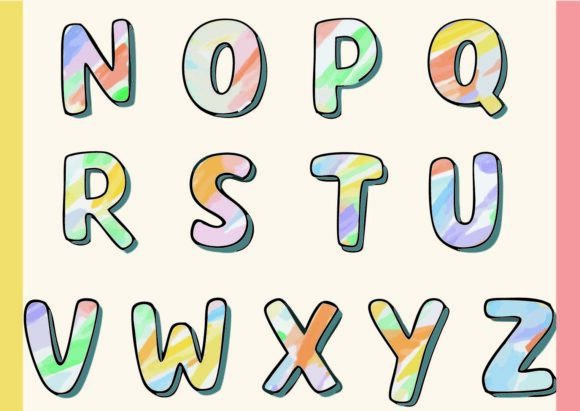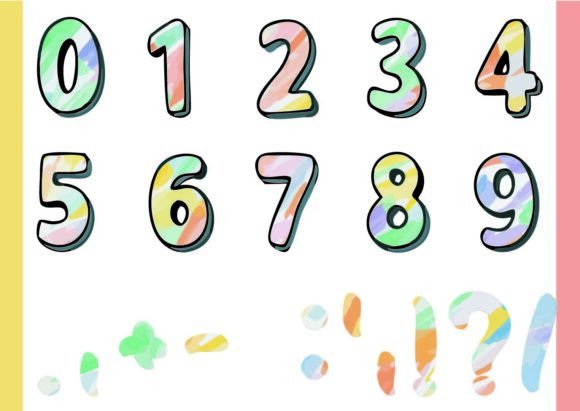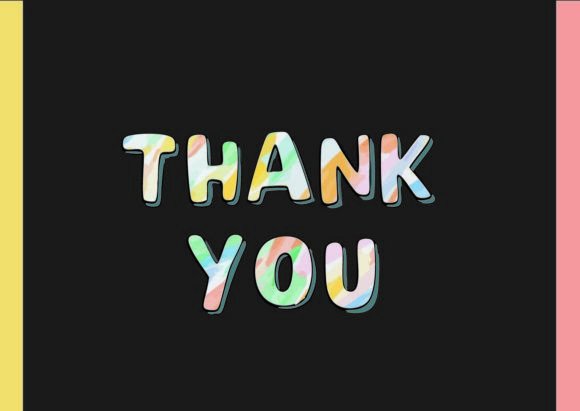
Eva Font: A Colorful Heaven for Designers and Crafters
Are you tired of traditional fonts and looking for something that can add a pop of color to your designs? Look no further than Eva Font, a stunning color font that is sure to take your typography to the next level. In this article, we’ll dive into the world of Eva Font, exploring its unique features, compatibility, and uses, making it a must-have for designers and crafters alike.
What is Eva Font?
Eva Font is a chromatic font, meaning every single glyph has a different set of colors. This results in a colorful heaven, where each letter, number, or symbol is a vibrant and eye-catching element that can add visual interest to any design. Whether you’re working on a branding project, a craft, or a digital design, Eva Font is sure to make your work stand out.
A Closer Look at Eva Font’s Glyphs
If you take a closer look at the glyphs in Eva Font, you’ll notice complex sets of paths and connections in every single one of them. Each glyph is like a typographic painting, with intricate details and a unique color scheme. This level of detail and craftsmanship makes Eva Font a true masterpiece, perfect for designers and crafters who appreciate the art of typography.
Uses for Eva Font
Eva Font is a versatile design asset that can be used in a variety of projects, including:
- Branding and logos: Add a pop of color to your brand identity with Eva Font’s vibrant glyphs.
- Digital designs: Use Eva Font to create eye-catching social media graphics, blog posts, and website headers.
- Crafts: Eva Font is perfect for crafters who love to work with vinyl, iron-on transfers, or paper crafting.
- Sign making: Create stunning signs with Eva Font’s colorful glyphs.
Tips for Working with Eva Font
Eva Font is a game-changing color font that is sure to delight designers and crafters alike. With its unique and colorful glyphs, compatibility with popular design software, and versatility in use, Eva Font is a must-have design asset for anyone looking to add a pop of color to their work. Whether you’re a seasoned designer or a crafty hobbyist, Eva Font is sure to inspire your creativity and take your designs to the next level.